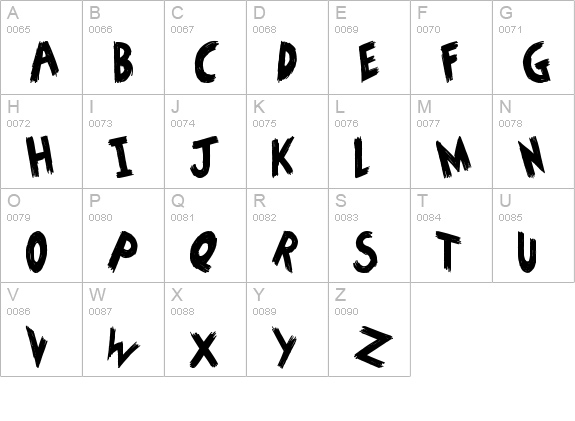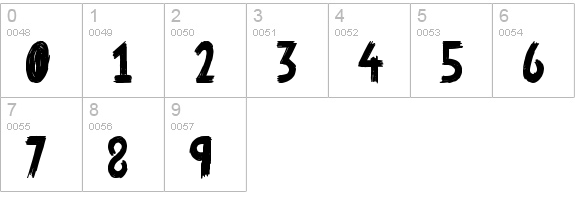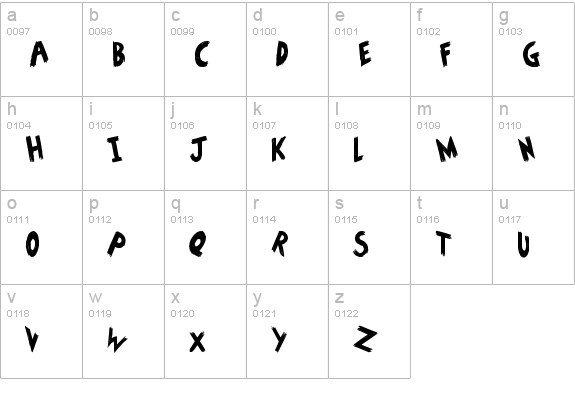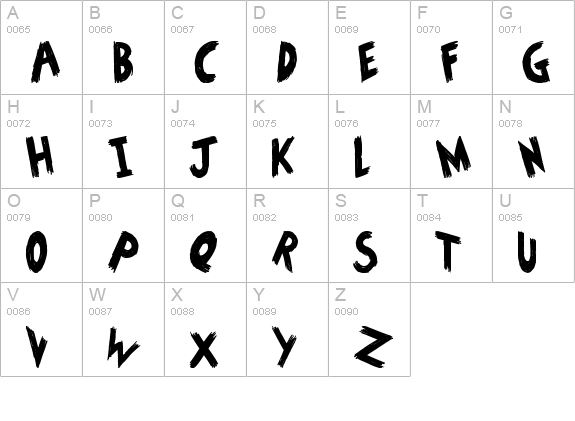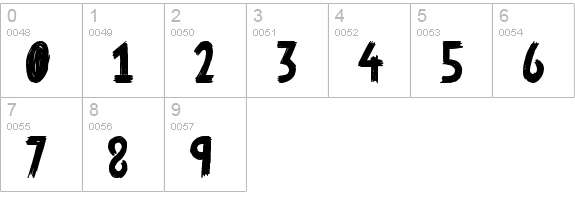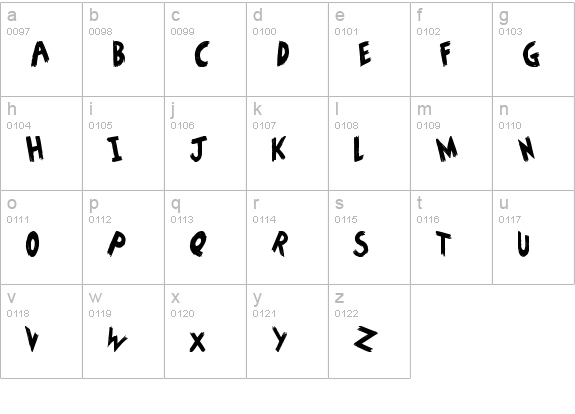
Introducing Sucker Puncher Font, a striking and powerful typeface that packs a punch with its bold and energetic design. This font exudes confidence and strength, making it the perfect choice for projects that require a strong visual impact. Sucker Puncher Font is a versatile display font that can be used for a variety of purposes, from eye-catching headlines to attention-grabbing posters. Its unique and edgy letterforms are sure to captivate and engage your audience, leaving a lasting impression. What sets Sucker Puncher Font apart is not only its stunning aesthetics, but also the fact that it is free to download at FontsMarket.com. Yes, you read that right - this exceptional font is freely available, making it accessible to designers, creatives, and enthusiasts alike. With Sucker Puncher Font, you can unleash your creativity without breaking the bank. Whether you're designing a logo, crafting a poster, or creating a captivating social media graphic, this font will empower you to create visually stunning and impactful designs. Don't miss out on the opportunity to add this impressive font to your collection. Download Sucker Puncher Font for free at FontsMarket.com and let your designs deliver a knockout punch.